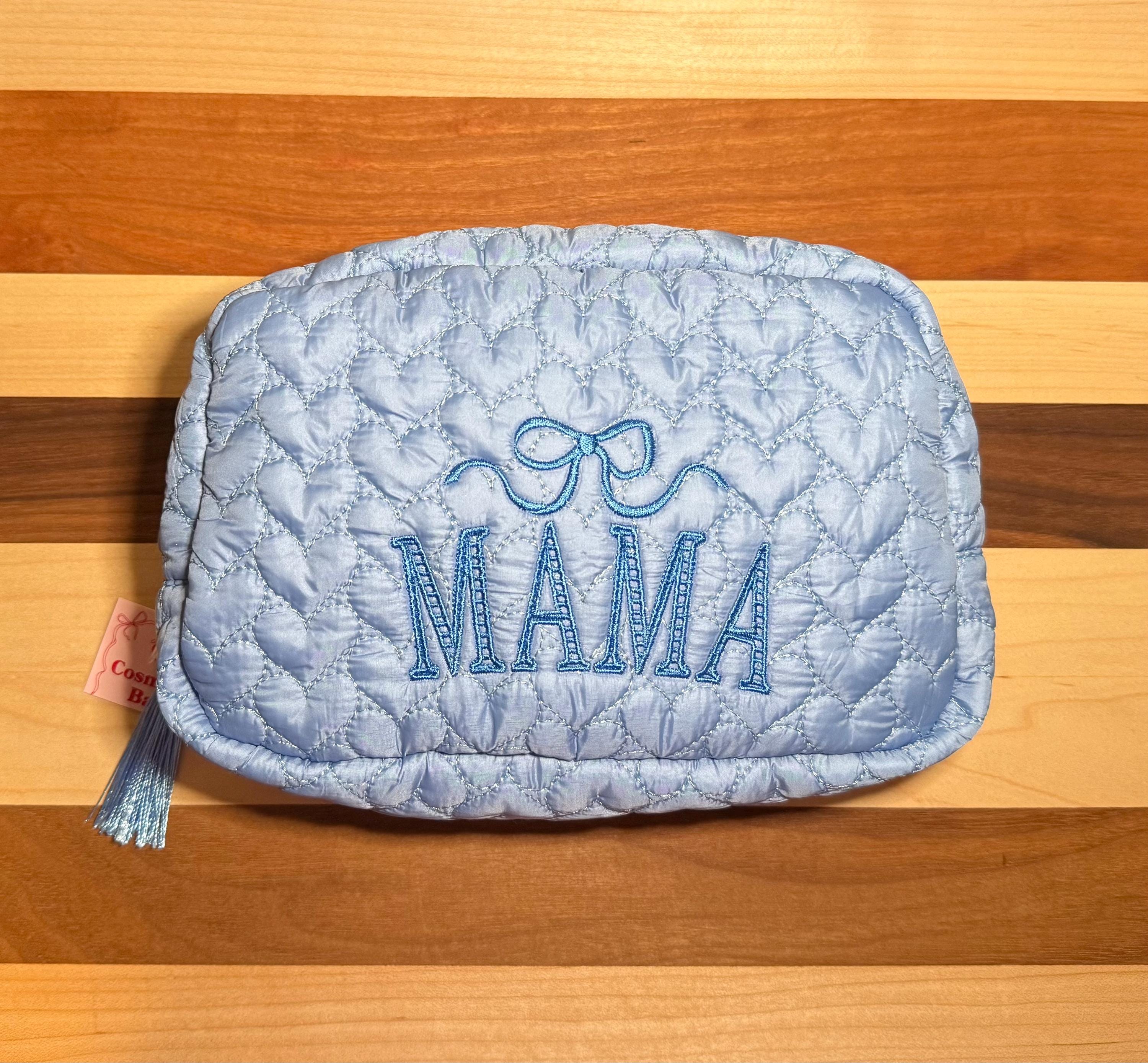
Block Striped Narrow Font satin stitch alphabet monogram letters numbers punctuation machine embroidery designs sizes 2 up to 4.5 inch, and BX
Entire alphabet A-Z uppercase and lowercase letters, numbers 0-9, and punctuation.
This is a transparent font, and the background fabric looks through. Stunning effect!
Love this shop. Everything stitches out perfectly. This font is gorgeous
Very cute font. I did get several thread breaks throughout the stitching of 3 letter; but not sure what the cause was.
Love it! The stripes are a nice touch to the design